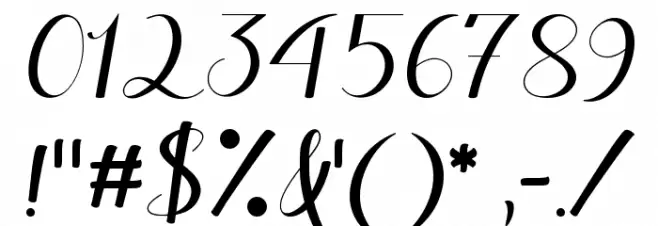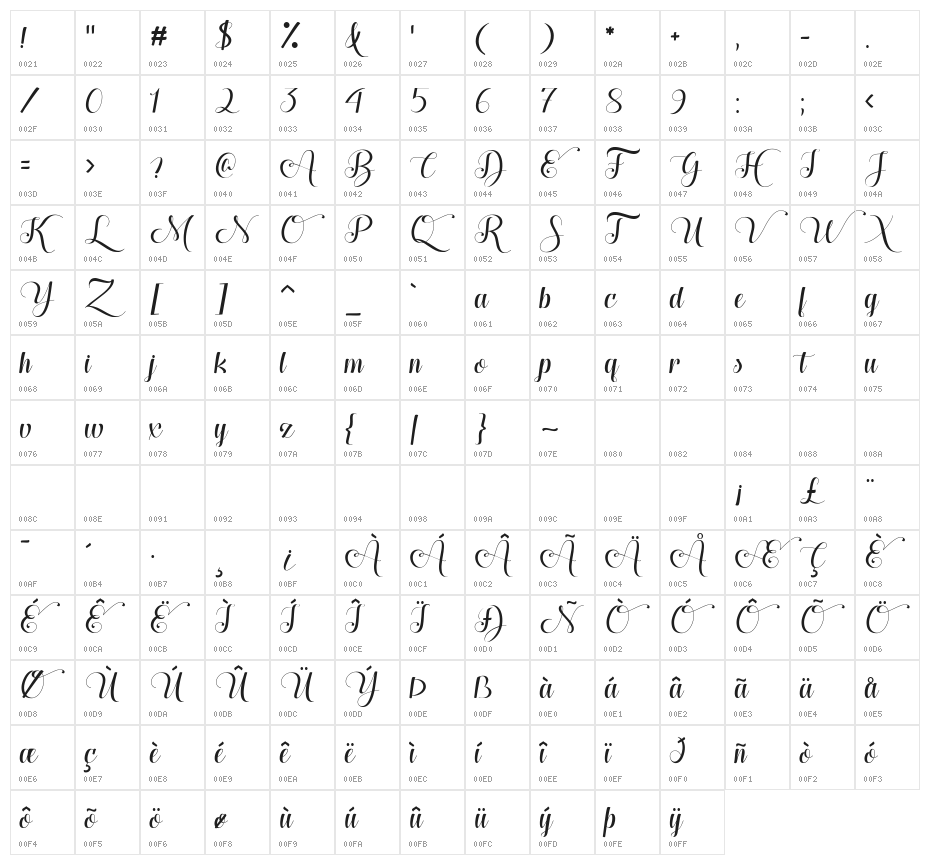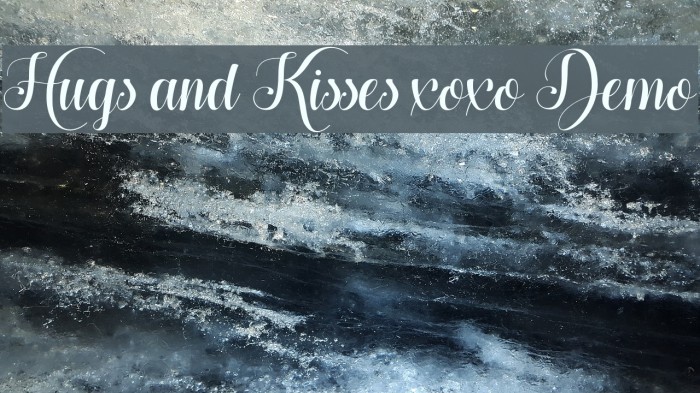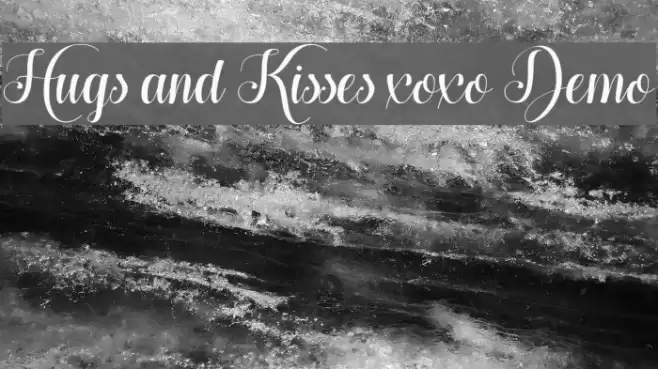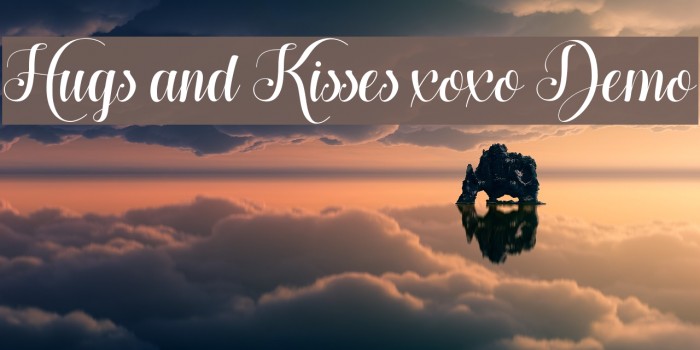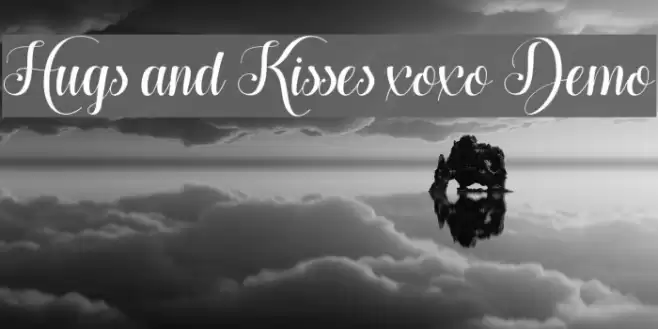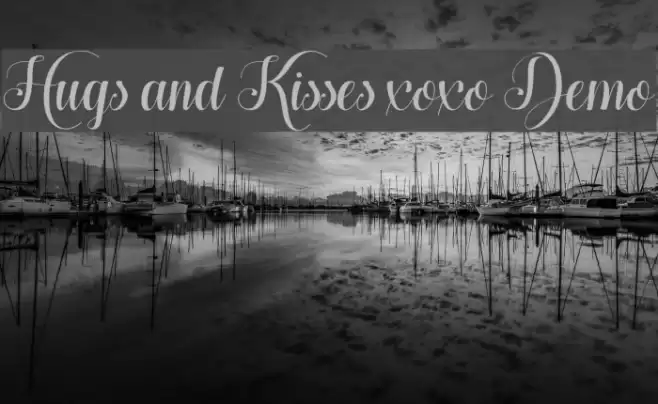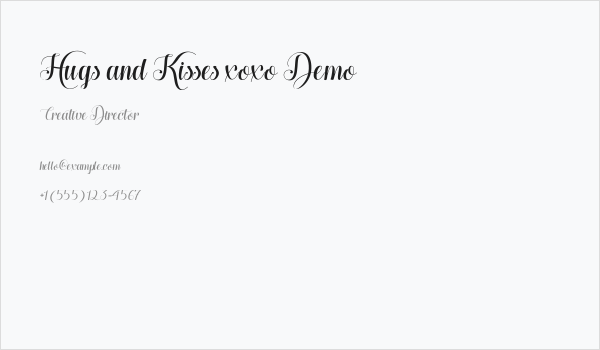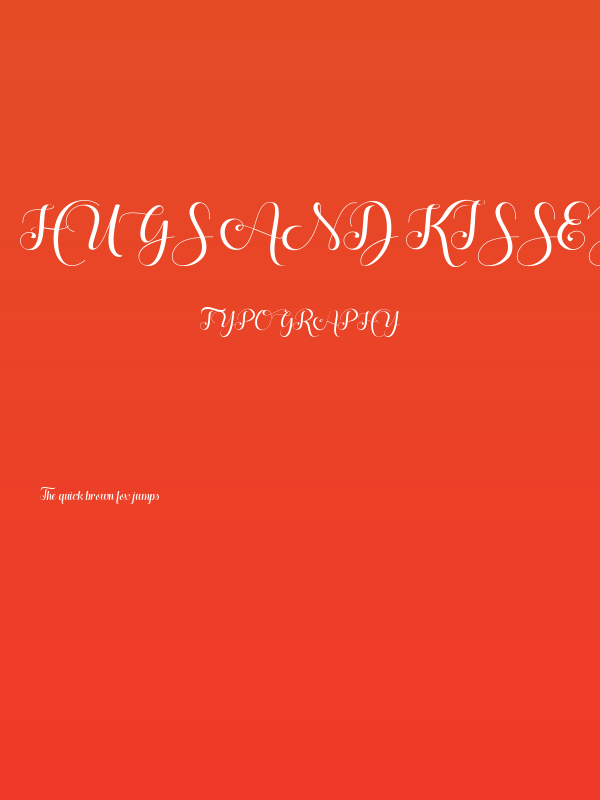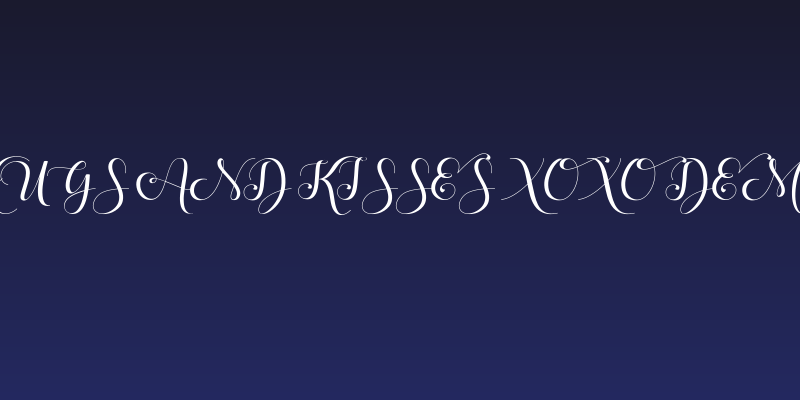
Hugs and Kisses xoxo Demo Font
Hugs and Kisses xoxo Demo Description
This elegant script font features a flowing, cursive style with intricate loops and swashes, creating a sense of romance and sophistication. The uppercase letters are particularly ornate, with exaggerated flourishes that add a decorative touch. The lowercase letters maintain a consistent flow, making them highly legible despite their decorative nature. The numerals are stylish and align well with the overall aesthetic, while the special characters complement the script's elegance. This font is perfect for projects that require a touch of class and elegance, such as wedding invitations, greeting cards, or luxury branding.
Overall StyleElegant, Romantic
Use CaseLogos, Invitations, Decorative Text
Proposed ProjectsWedding invitations, greeting cards, luxury branding, elegant logos.